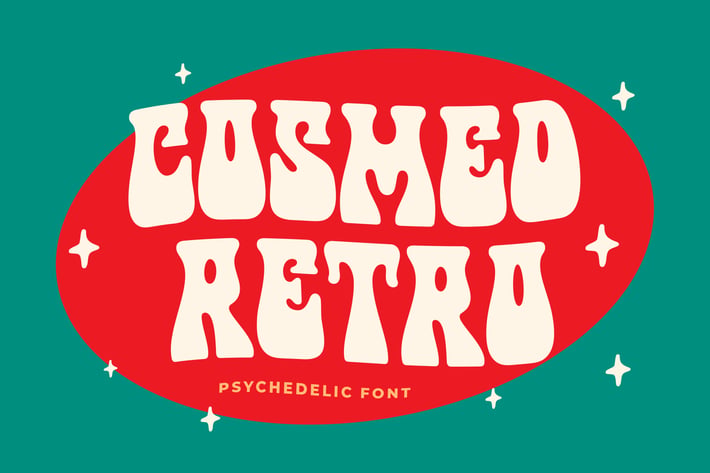
Cosmed Retro Font
Cosmed Retro is a psychedelic retro font style with a bold touch at the bottom. As the name suggests, this font has a unique and fun old-school character style. It is perfect to complete your retro font collection. Equipped with all complete characters ranging from capital letters, lowercase letters, numbers, punctuation, and multilingual support, this font is ready to be used in any project.
Numbers & Punctuation
Alternate
Numbers & Punctuation
Alternate